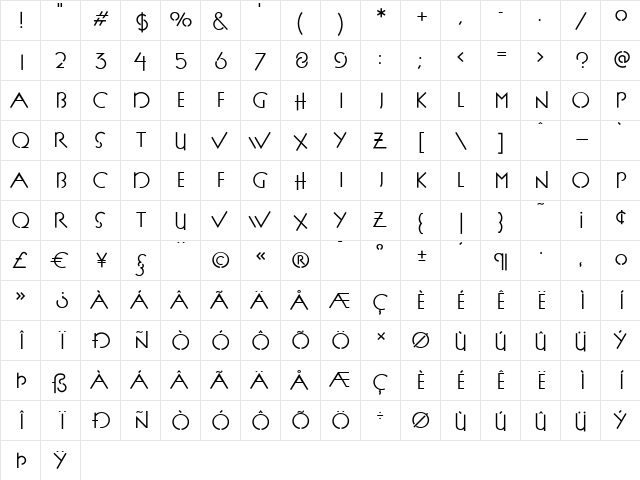
P22FLLWExhibition Regular
Design Context for P22FLLWExhibition Typeface
P22FLLWExhibition offers clean, dependable letterforms without strong stylistic allegiance, making it a practical choice for designers who need flexibility.